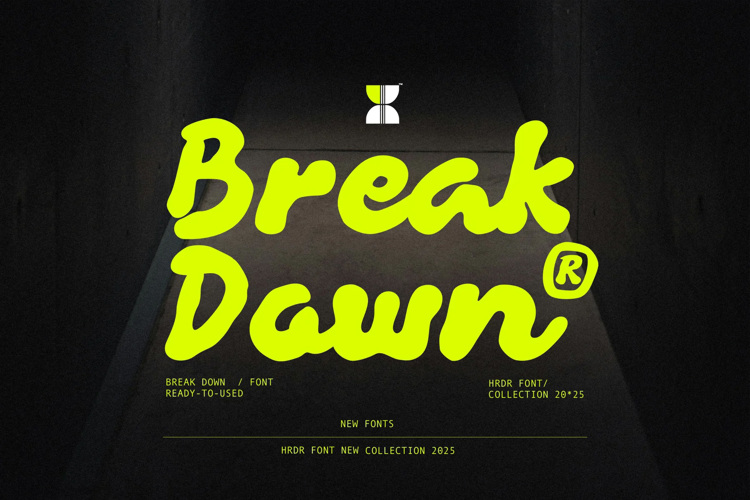
Break Down Font
" Meets Break Down " is a bold, curvy rounded script and font that combines retro charm with elegance. Its handwritten style brings a personal and expressive touch, making it perfect for designers working on eye-catching headlines, artistic logos, creative branding, and playful posters. The font is ideal for those who want to create a fun and unique impression in their design projects.
Font Features :
- Uppercase
- Lowercase
- numeric & Multilingual support
- Ligatures
- Stylistic Alternates with Ss01